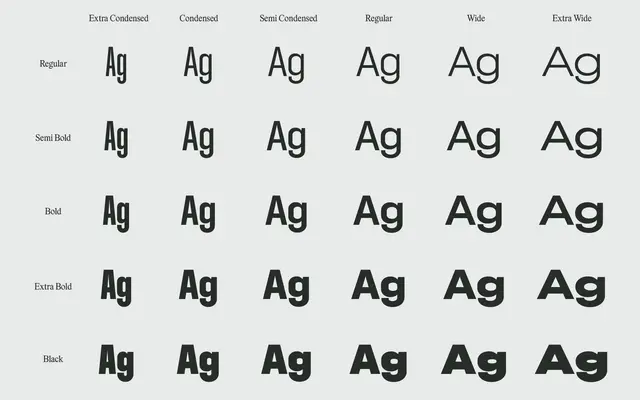
Kurdis Variable Family
A variable sans-serif spanning six widths and five weights, offered as both static and variable-font formats with weight and width axes.
Thirty static cuts run from ExtraCondensed to ExtraWide across five weights from Regular to Black, with a corresponding variable font exposing weight and width axes continuously. OpenType features include fractions, superscript, subscript, scientific inferiors and ordinals, plus a stylistic set. The breadth of width variation makes it practical for layouts that need a single coherent typeface across radically different column widths or display sizes.
The family presents as a clean, upright sans-serif with no visible calligraphic or humanist detail; its systematic width axis spanning ExtraCondensed to ExtraWide with five weight grades per width suggests a geometric or neo-grotesque construction.